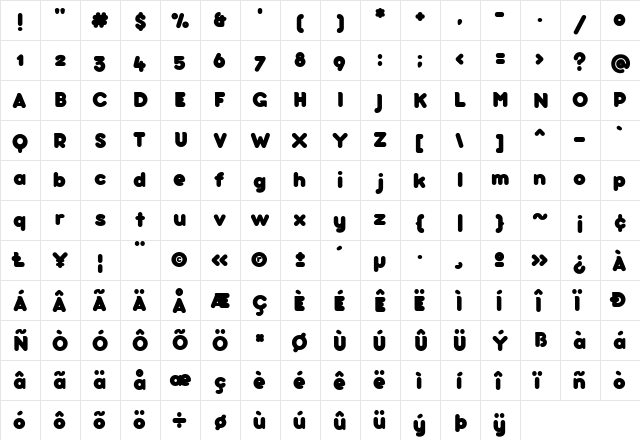
bubbleboddy Fat
Fat · studio kmzero Francesco Canovaro ·
Design Context for bubbleboddy Typeface
bubbleboddy trades formality for fun, with bouncy, characterful letterforms that bring warmth and energy to any project.
Great for children's books, toy packaging, family event branding, and casual consumer-facing design.
Font Pairing: Pairs well with a rounded or humanist sans for body copy, maintaining the friendly tone without relying on bubbleboddy to carry extended reading.
Pro Tip: Avoid using bubbleboddy for long passages of text — it works best for headlines, labels, and short calls to action.